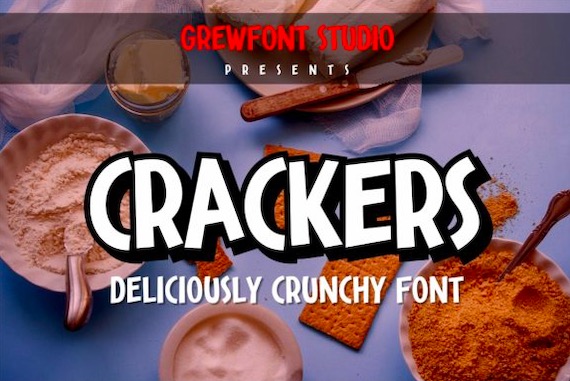
Crackers Font was created and shared by Grewfont.Studio who is a great famous foundry with many gorgeous design products. This display font will embody authenticity, quirkiness, and fun to your project.
Crackers Display Font